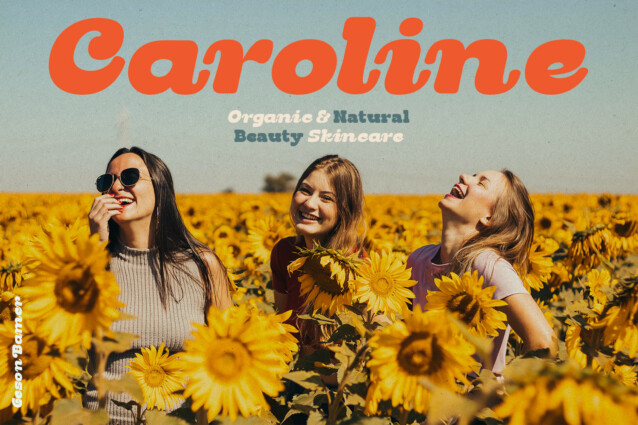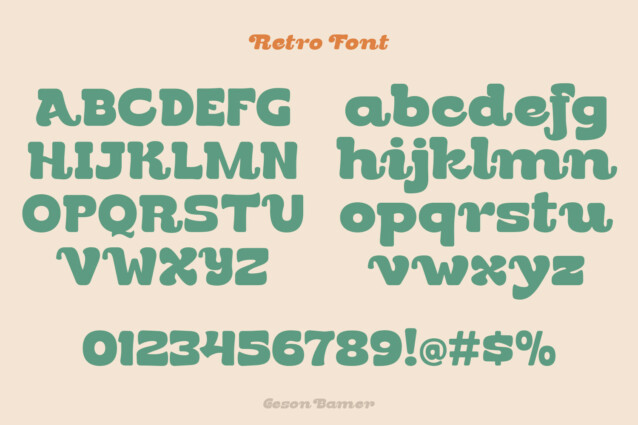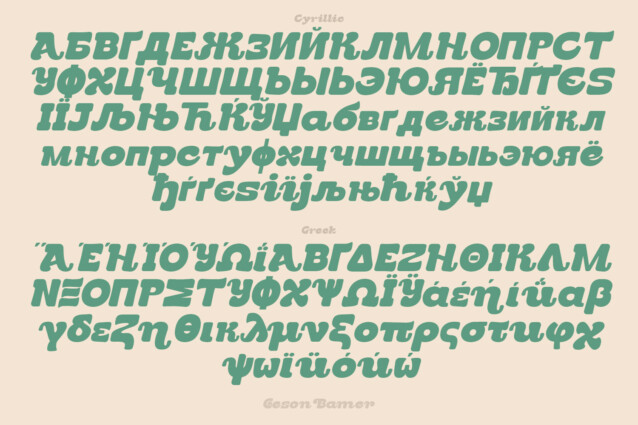
Gosen Bamer Font
Gosen Bamer Font is a retro font come with 80’s retro style serif. Retro and refined you can explore and combine creating rhythm for comfortable reading. This font supports more than 100 Latin-based languages and has extensive Cyrillic and Greek support for languages like Russian, Bulgarian, Ukrainian, and many more.